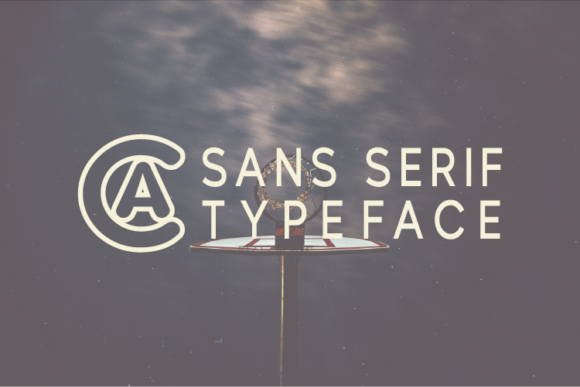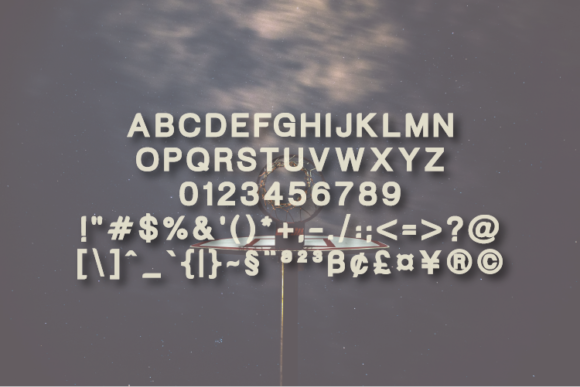
Introduction to Guienode Font
Guienode is a simple and clean sans serif font.
It can effortlessly be added to a large set of ideas, so add it to your creations and notice how it makes them stand out .
Key Features of Guienode Font
Why Choose Guienode Font?